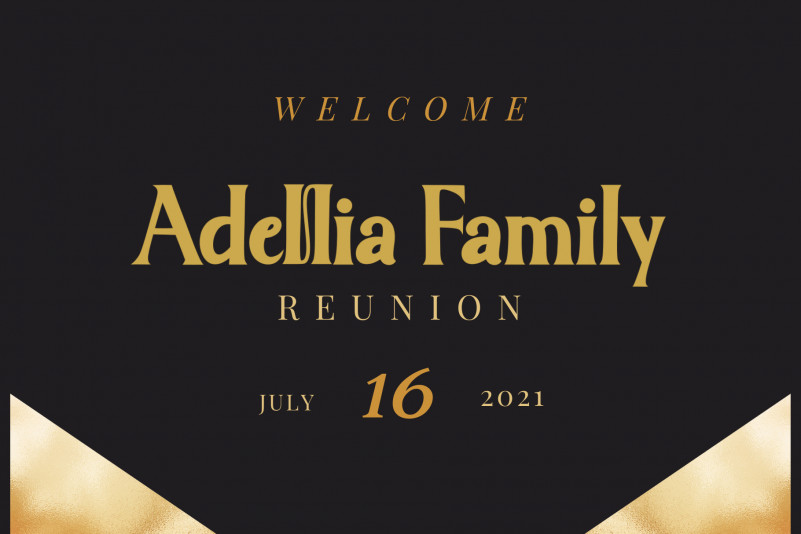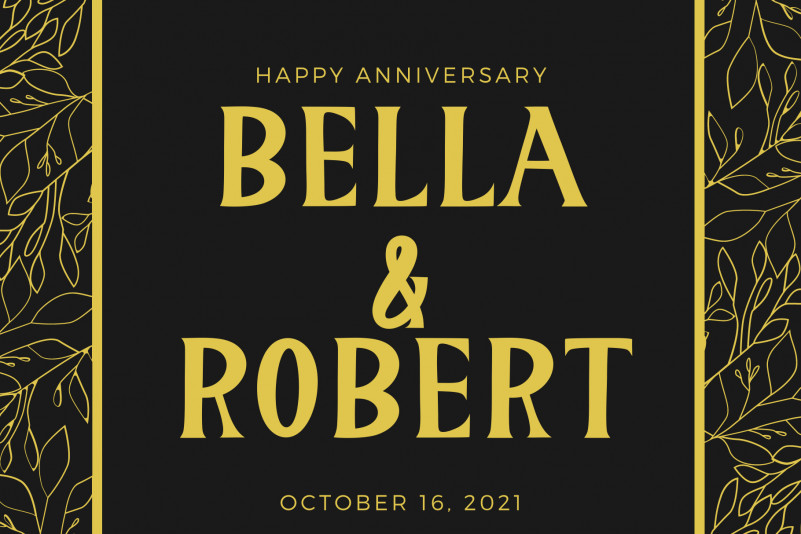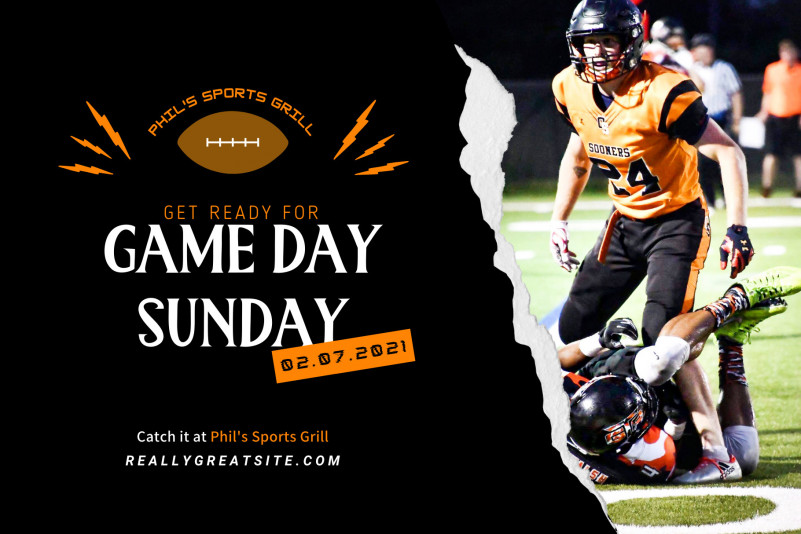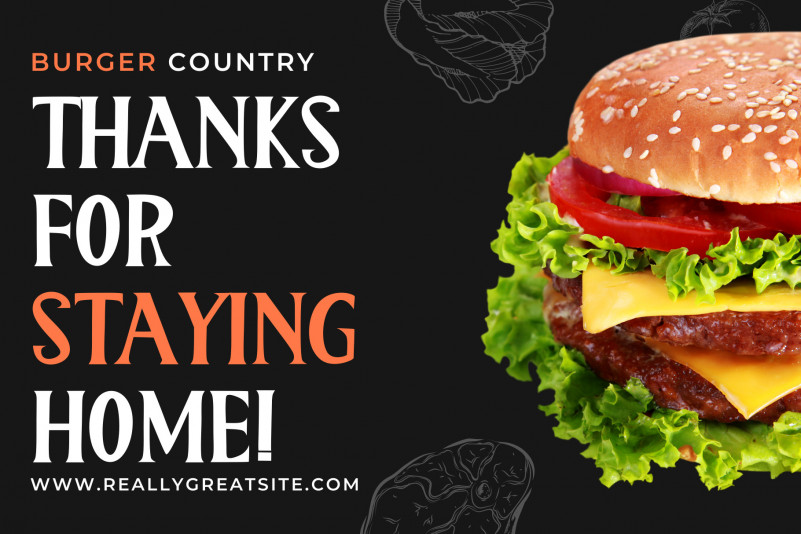
Linford Serif Font
This is a very professional and elegant serif font. This font is very easy to use for all your work. This font comes with 8 elegant and attractive ligatures. This font can be used to promote all your business (branding, banners, posters, social media, hotel promotions, villas, companies, products, invitations, and more).